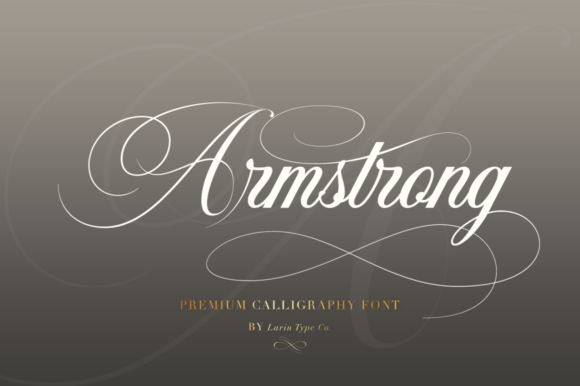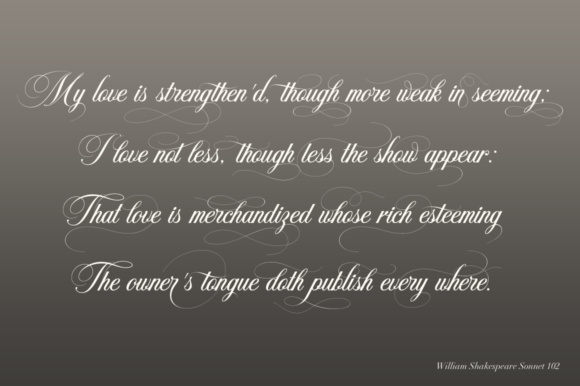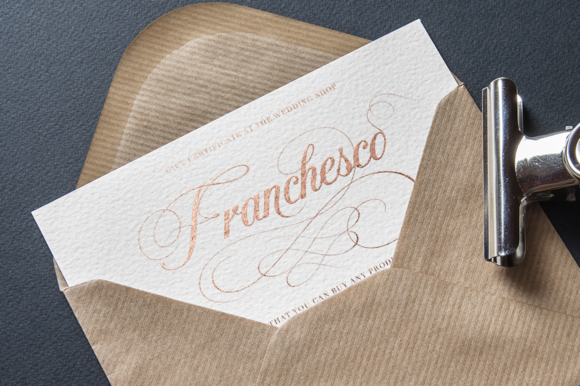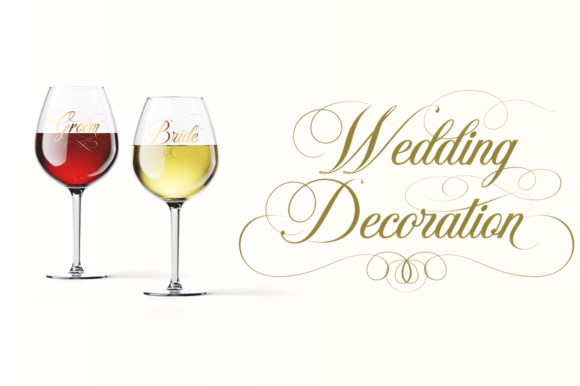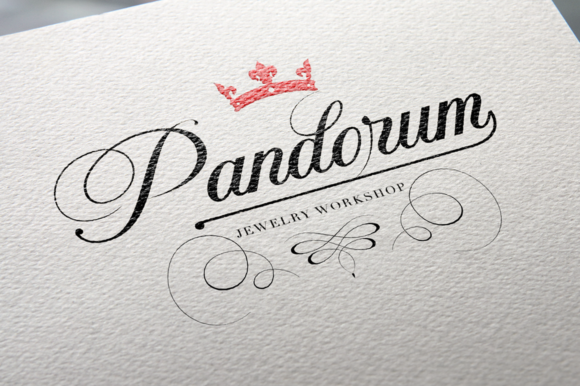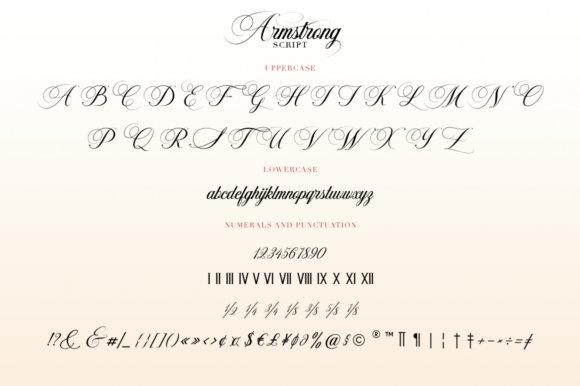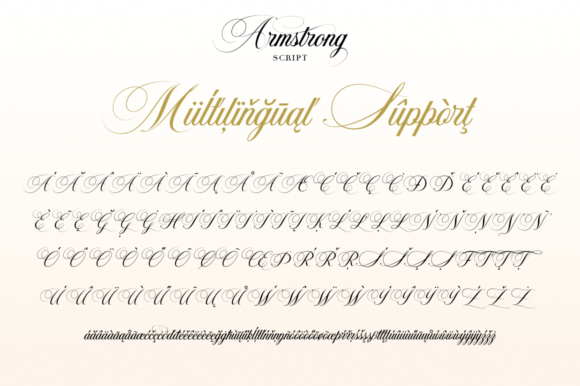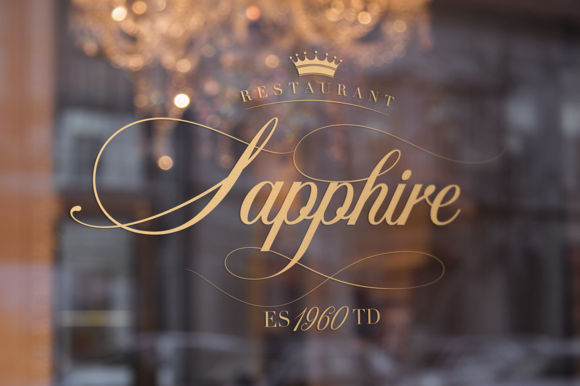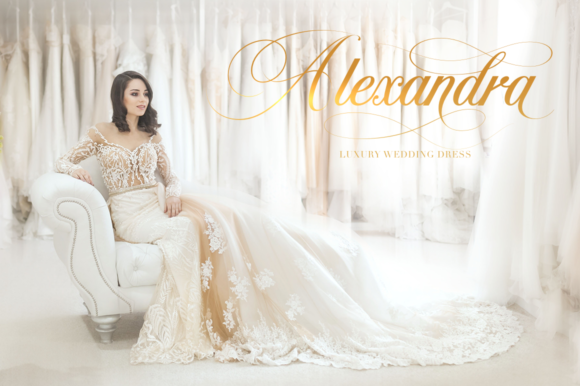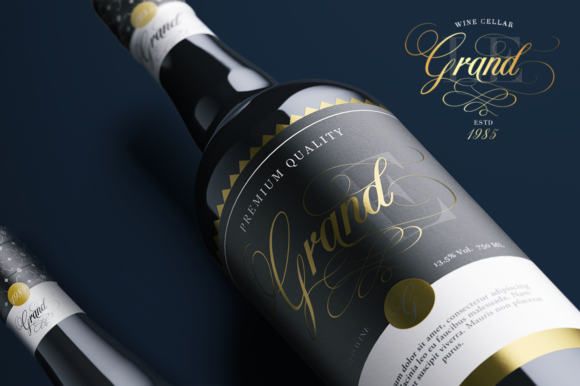
HomeScript FontsArmstrong Font Script Fonts Armstrong Font FacebookXPinterestWhatsApp Armstrong Font Poster 2 Armstrong Font Poster 3 Armstrong Font Poster 4 Armstrong Font Poster 5 Armstrong Font Poster 6 Armstrong Font Poster 7 Armstrong Font Poster 8 Armstrong Font Poster 9 Armstrong Font Poster 10 Armstrong Font Poster 11 Armstrong Font Poster 12 Armstrong Font Poster 13 Armstrong Font Poster 14 Armstrong Font Poster 15 About Armstrong Font Inspired by classic calligraphy, Armstrong is an elegant and sophisticated handwritten font with a classic charm. DOWNLOAD NOW People also explored Traxtor Font Shine Bright Font Boogiescript Font Hearth Sublimation Font Legend Font Just Be Font Hello Darling Font Amigoste Font Devllin Font 341 0 TagsArmstrong Font Previous articleCreatie FontNext articleSusteria Font LEAVE A REPLY Cancel reply Comment: Please enter your comment! Name:* Please enter your name here Email:* You have entered an incorrect email address! Please enter your email address here Website: Save my name, email, and website in this browser for the next time I comment. Personal Use Free The Lima Personal Use Free Read more about this font Mold Papa Personal Use Free Read more about this font Kredit Personal Use Free Read more about this font Manhattan Personal Use Free Read more about this font BLOG Exploring Font Trends Shaping Communication in the Digital Era Fonts, like all design elements, are subject to trends. They play a crucial role in communicating a brand's personality,... How to Cut Any Font on Cricut: Convert a Font to SVG (Free) How to Install and Use Fonts on Windows, macOS, and Web Projects Free Fonts Risk: Why Free Fonts Can Be Dangerous for Designers